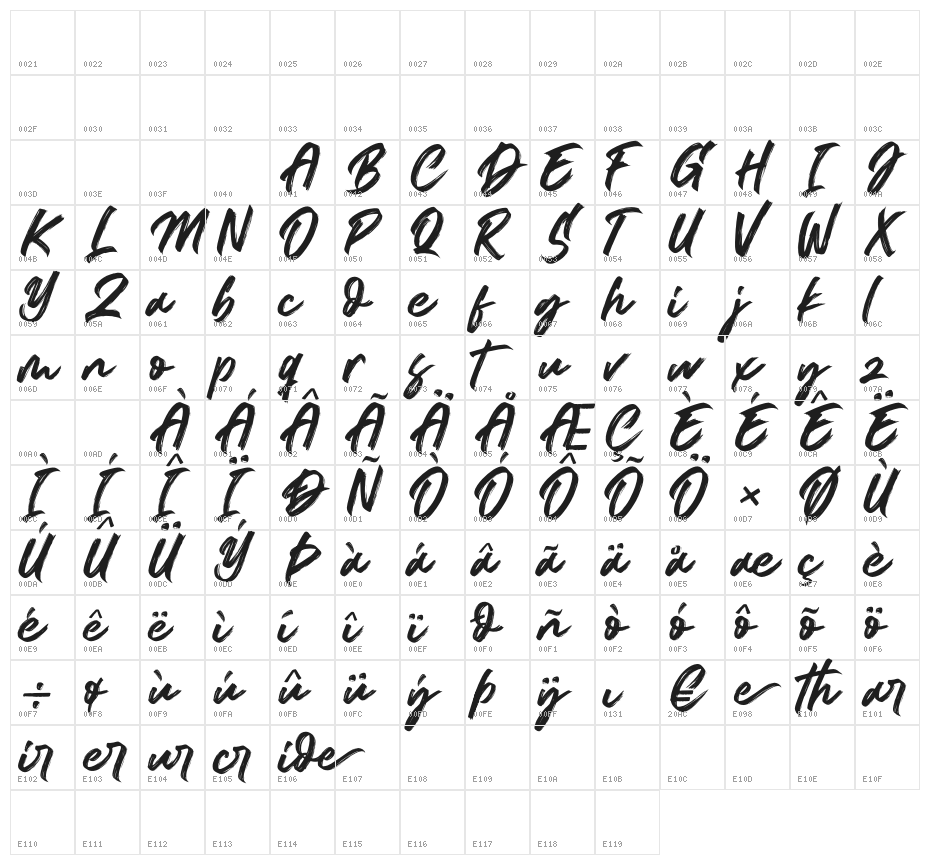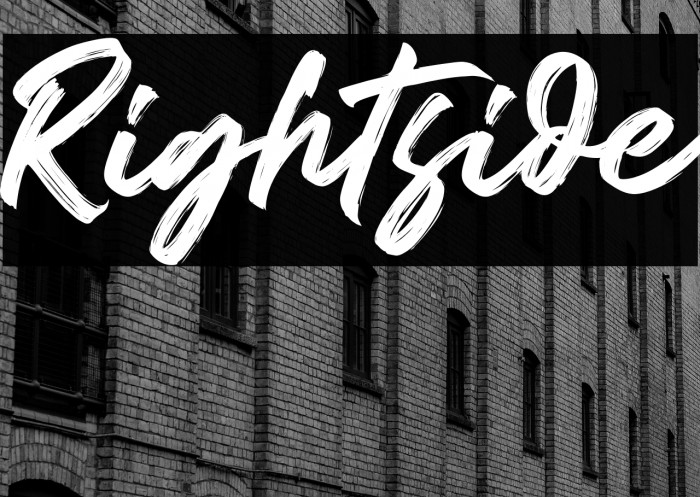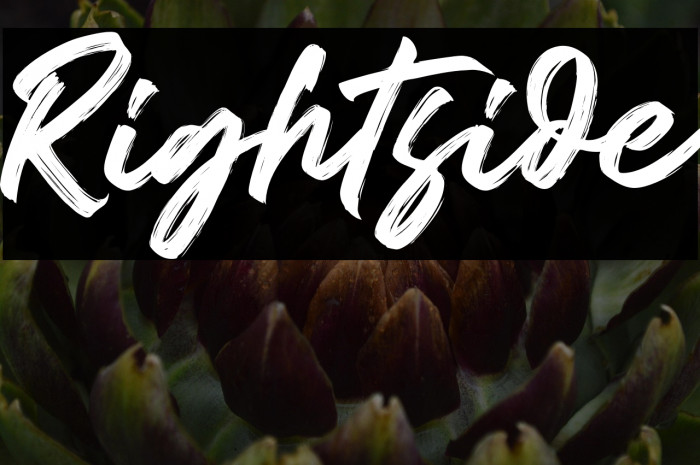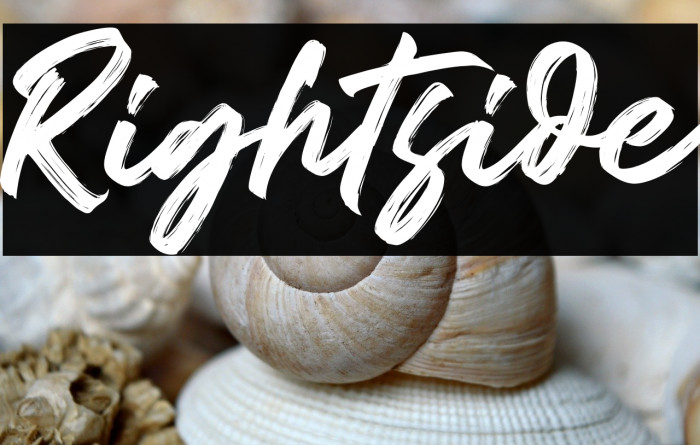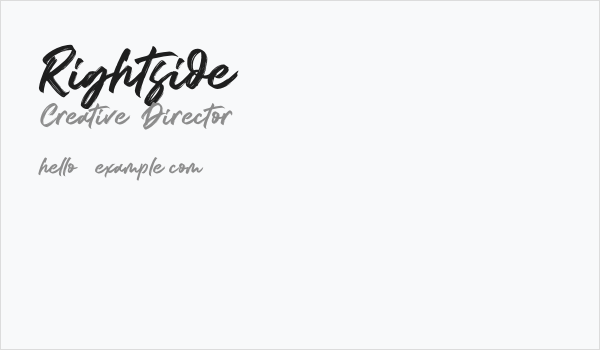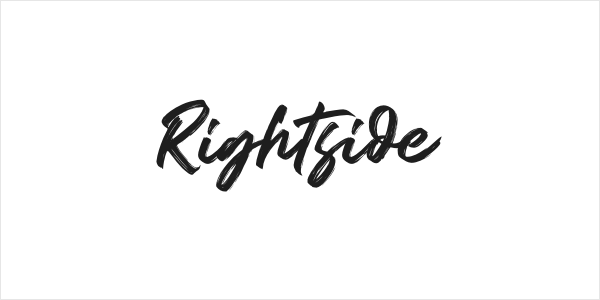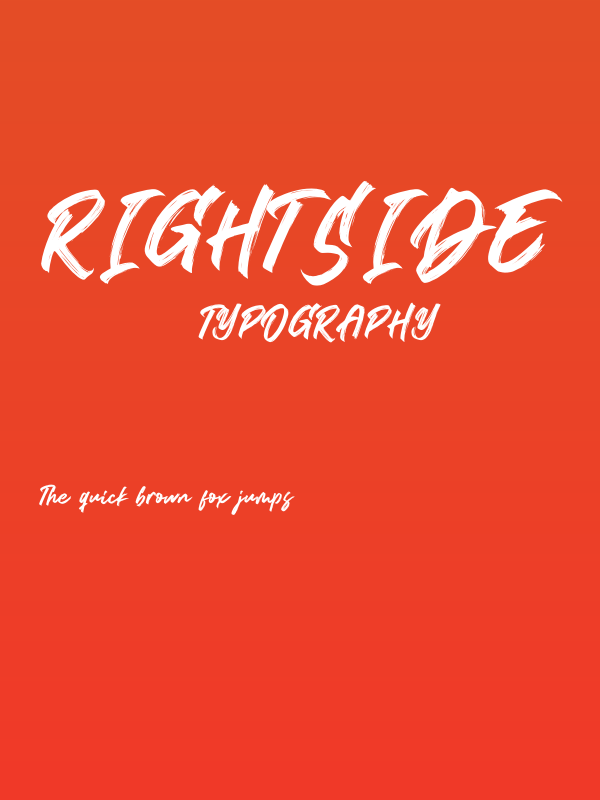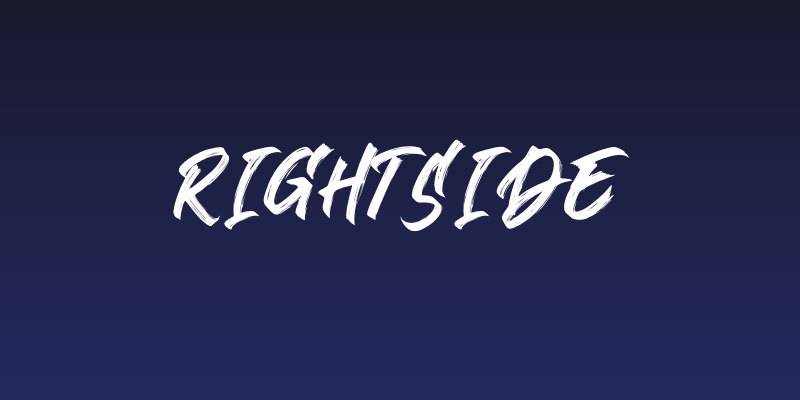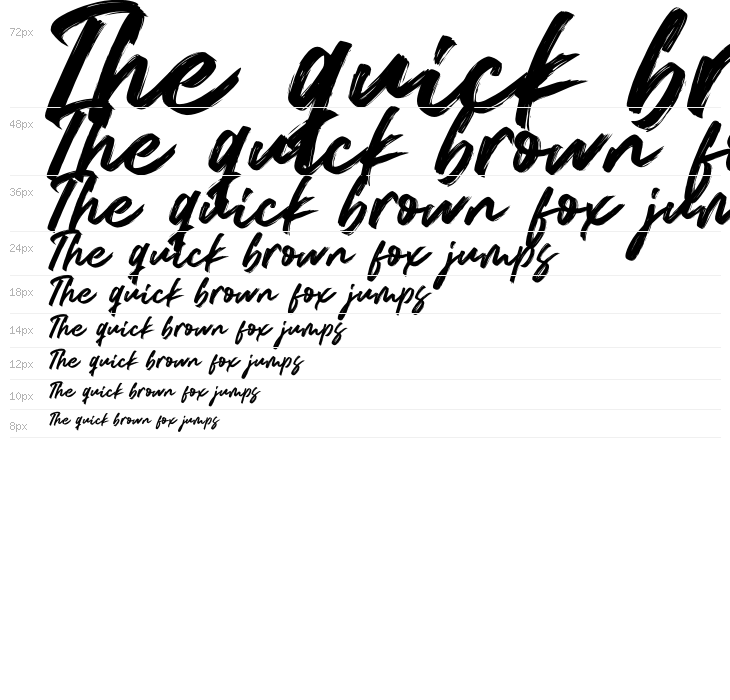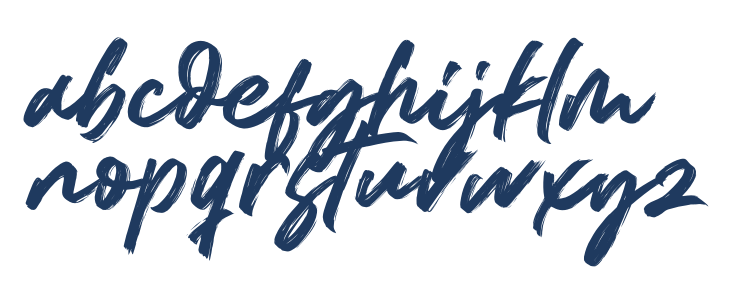
Rightside Font
Rightside Description
This font features a bold, expressive brush style with a dynamic and energetic appearance. The strokes are thick and varied, giving it a hand-painted look that is both artistic and spontaneous. The letters are slightly slanted, adding to the sense of movement and fluidity. The uppercase and lowercase characters maintain a consistent style, with some letters featuring unique flourishes and curves. The numbers and special characters are equally bold, ensuring a cohesive look across all text elements.
| Proposed Projects | Ideal for creative projects such as posters, branding, and packaging design where a bold, artistic statement is needed. |